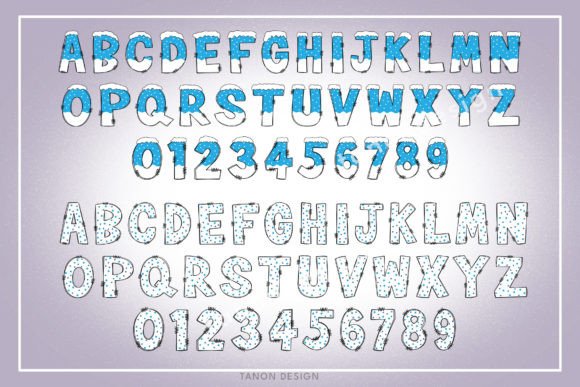
Four Snow Font
You will get 4 color fonts and PNG transparent files. It will look fantastic on all your Christmas-themed designs including t-shirt designs, mug designs, digital designs, crafts, cards, and any projects!